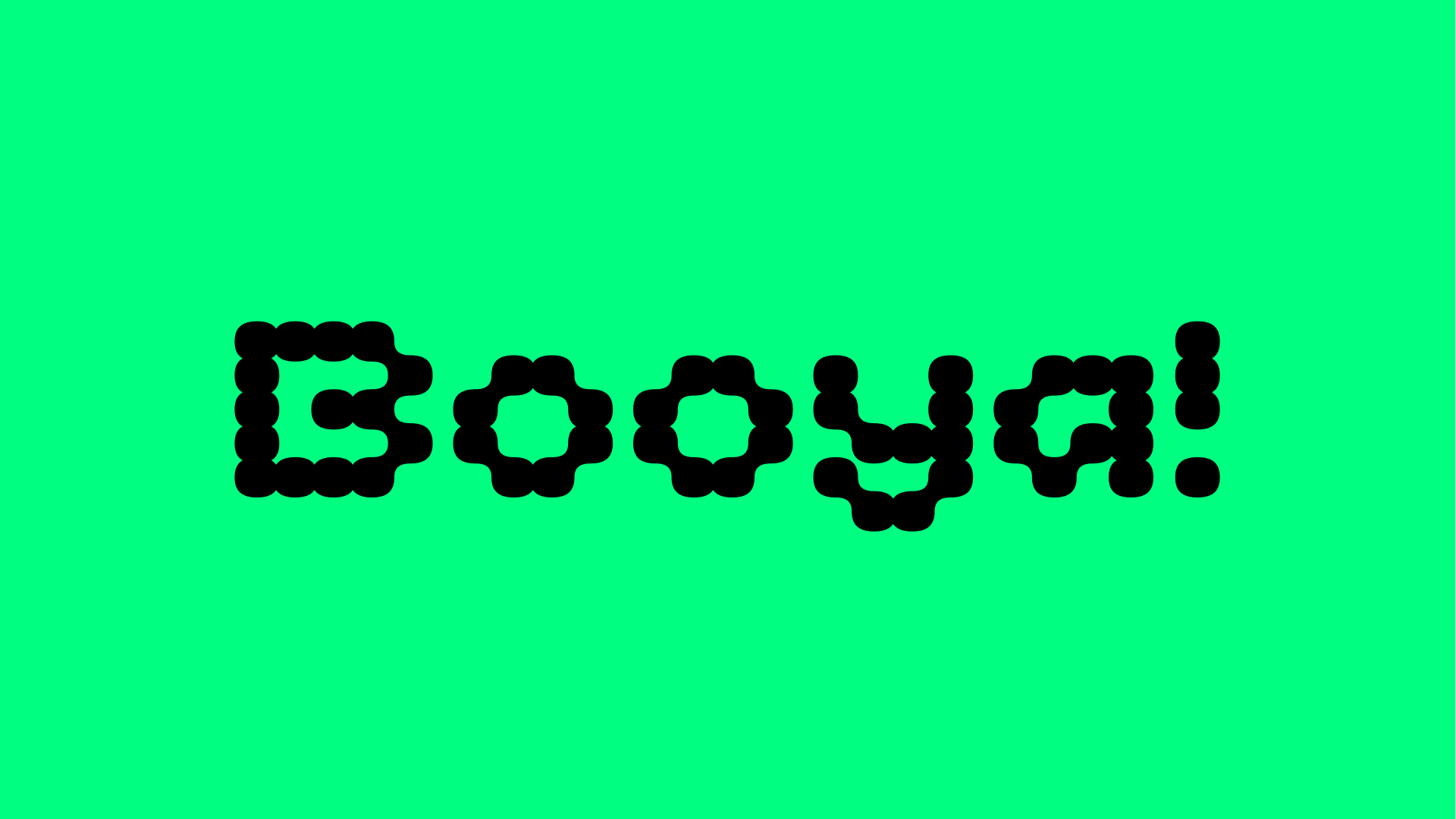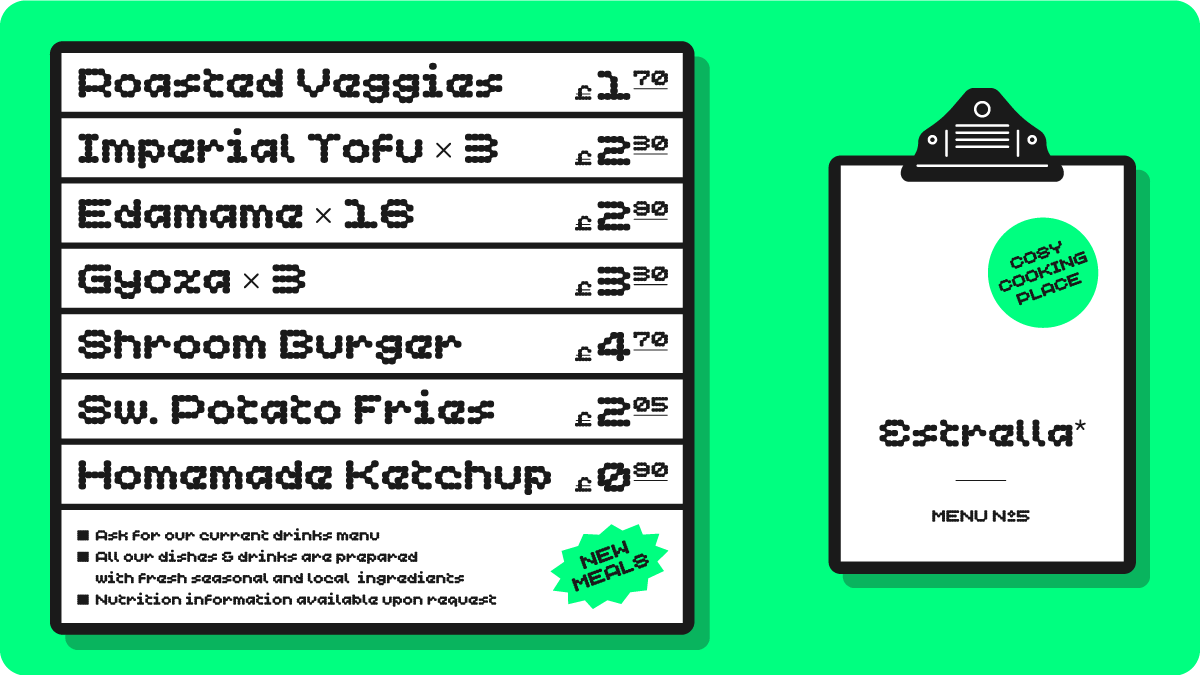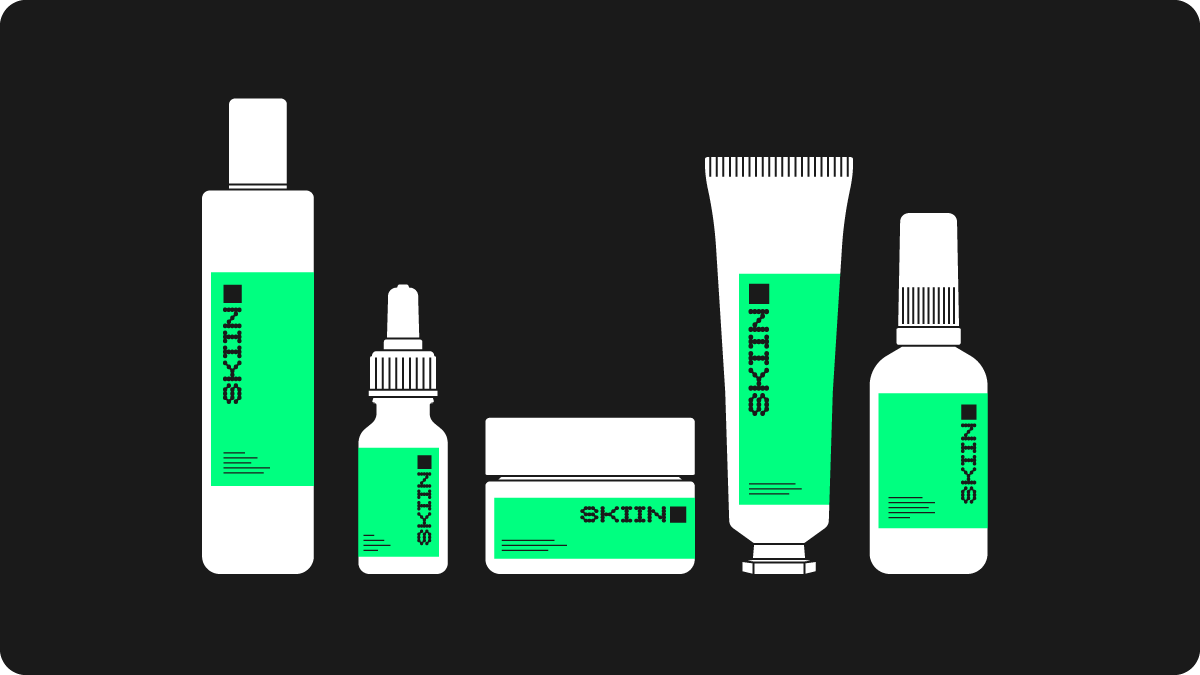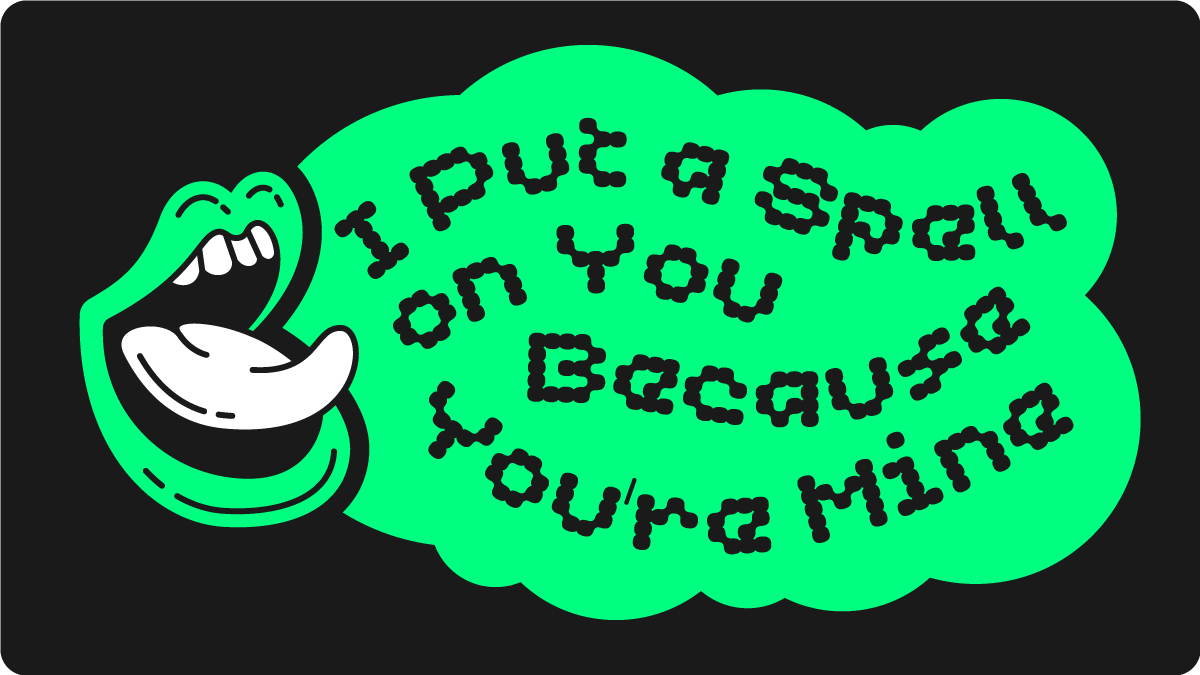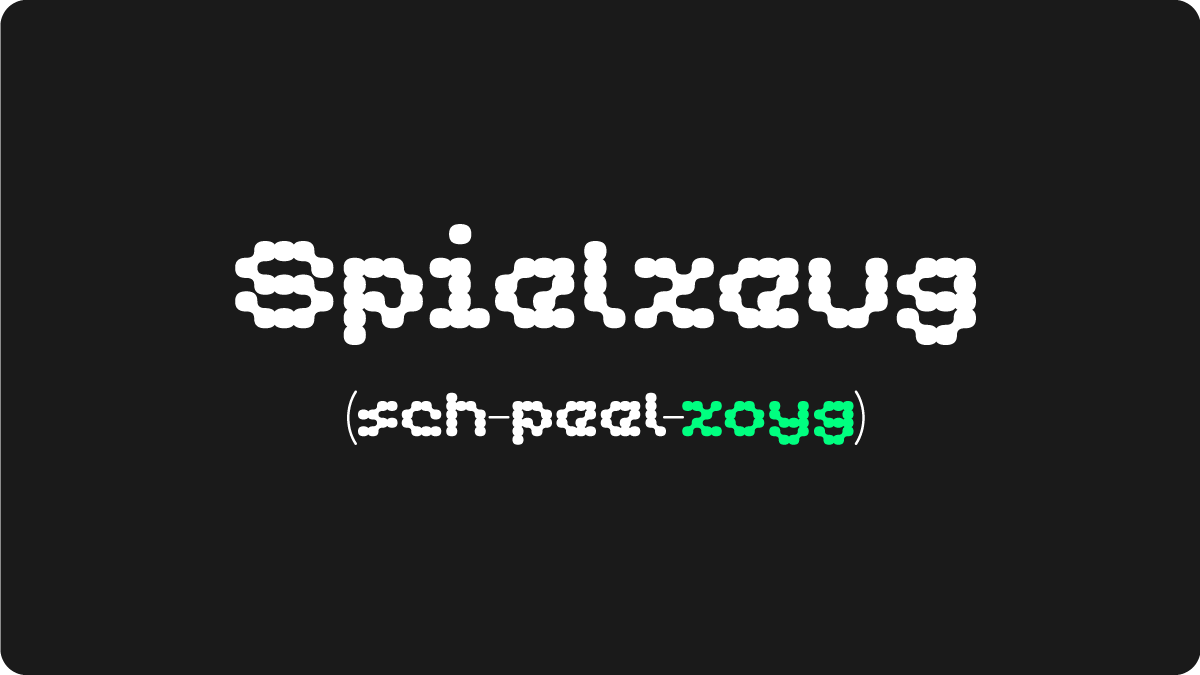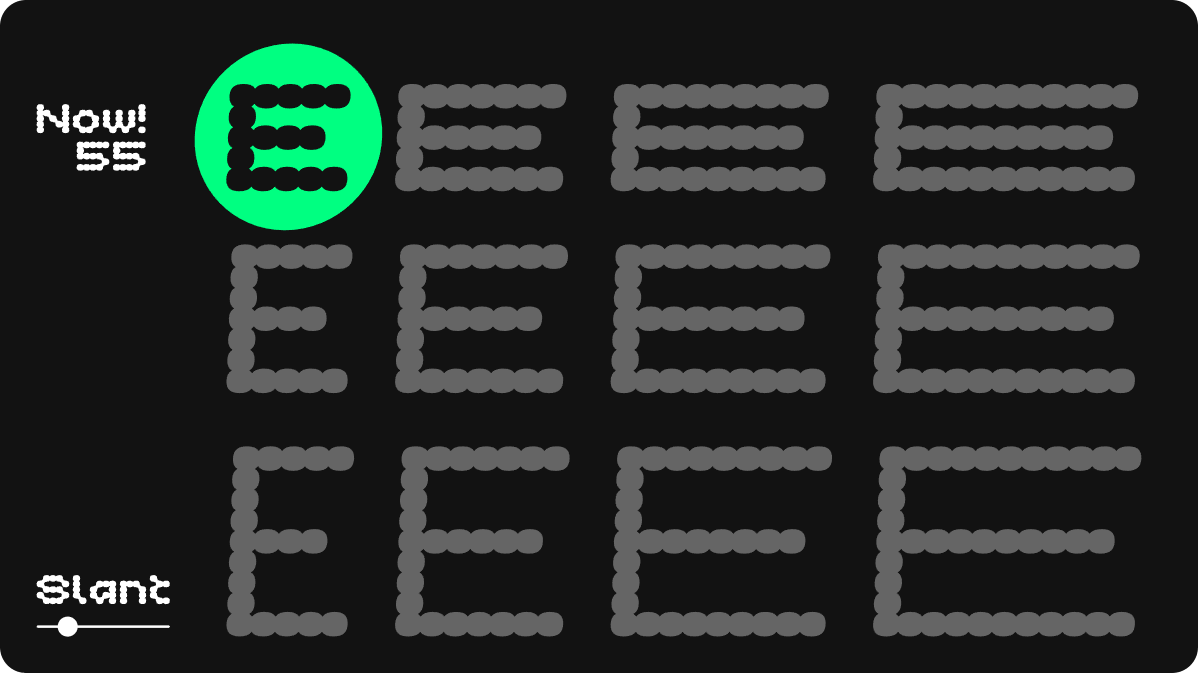
Zoyg is available, Neurolinguistics, Music and stuff
Zoyg: New Font Available
Introducing the Zoyg Font Family
This display typeface besides being weird and playful is also very versatile. Obviously, I won’t recommend using it for long paragraphs. But, for logos and visual identities, packaging, events, merchandising, editorial work, illustrations or large titles: it is a match. You also have plenty of characters to play with like alternative glyphs, large Latin language coverage and a collection of bulky punctuation marks (that you can turn on and off as a stylistic set).
The Name
I borrowed the name Zoyg watching the talk “You Think You Have Ideas But Ideas Have You” by Dan Kieran. I discovered Dan’s work reading his book “Do Start - How to create and run a business (that doesn't run you)”. In his talk, Dan explains the connection he sees between understanding the world and our use of languages and concepts. You’ll see with the video I’m referencing next, there is a logical train of thoughts. But I’m getting off course… In German, the first meaning of “Zeug” is a thing, stuff or a piece. I think it suits very well the design of Zoyg. And as this typeface is fun to use and brings a playful look to some graphic works, I’m glad it’s connected this way to the word “Spielzeug” (toy, play piece literally).
The Family
Do Languages Shape Thoughts?
Short answer: they do. We might have had the intuition that the languages we use are influencing our understanding of the world and our perception of others and their contexts. Professor Lera Boroditsky studies the (neuro)science underpinnings this hypothesis, amongst other labs across the world. Fascinating topics and precise examples from recent field research to historical dynamics. Themes like colours, genders, perception of time and space, mental models, etc.
3️⃣ On Fighting the Typatriarchy
A conversation between Alison Place & Aasawari Kulkarni about feminism and the notion of gender stereotypes in the type industry. Via The League of Moveable Type newsletter.
4️⃣ Hello Type Friends podcast feat. Francis Chouquet
Go and listen to the conversation my friend Francis had with Eliot Jay Stocks about rituals, routine and one’s creative journey. The other episodes are great, of course.
Music break with OMA
I discovered OMA probably 2 months ago. Listening to videos about MF Doom, sampling or music production helped the YouTube algorithms to push me a couple of their videos. The band from Manchester does many Hip-Hop instrumental covers. Guitar, bass, drums and a keyboard. Very tight, groovy and atmospheric. Ideal for work if you need to focus but don’t need a rush of energy.